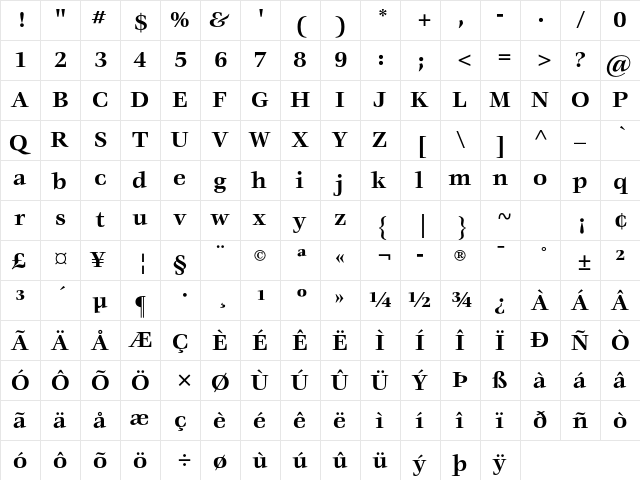
ITC Veljovic Std Bold Font Preview
ITC Veljovic Std Bold
ITC Veljovic Std Bold Font Details
| Designer | Jovica Veljovic |
Design Context for ITC Veljovic Std Typeface
ITC Veljovic Std takes a measured approach to typography — its balanced proportions and neutral character make it a reliable workhorse for both digital and print work. The heavy weight commands attention and anchors typographic hierarchies.